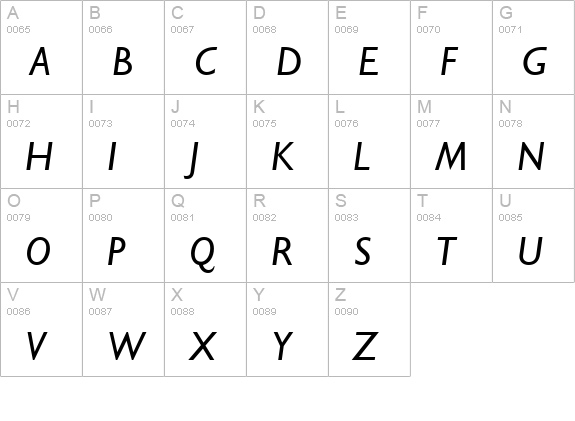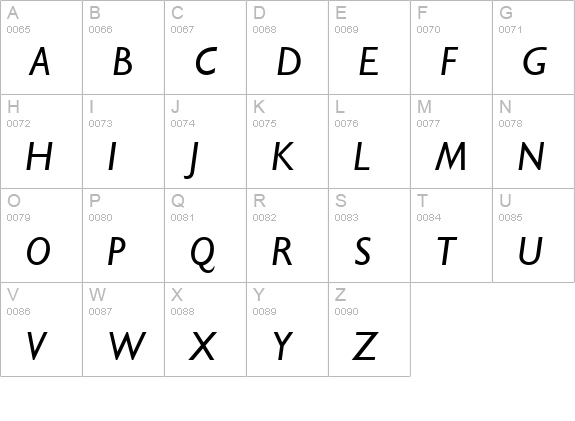
Gill SSi Italic is a distinctive, italic variant in the Gill typeface family \xE2\x80\x94 well suited to design and typography projects.
Gill SSi Italic font is a timeless and elegant typeface that exudes sophistication and style. With its sleek and slanted design, this font adds a touch of flair to any project or design. The graceful curves and unique letterforms make Gill SSi Italic a versatile choice for both print and digital applications. What sets this font apart is that it is not only visually striking but also completely free to download. You can easily access Gill SSi Italic font at FontsMarket.com, where you can add this beautiful typeface to your font collection without any cost. Whether you're working on a creative project, branding materials, or any other design endeavor, Gill SSi Italic font is sure to elevate your work with its sophisticated and modern look. Download this font for free today and see how it can enhance your designs.